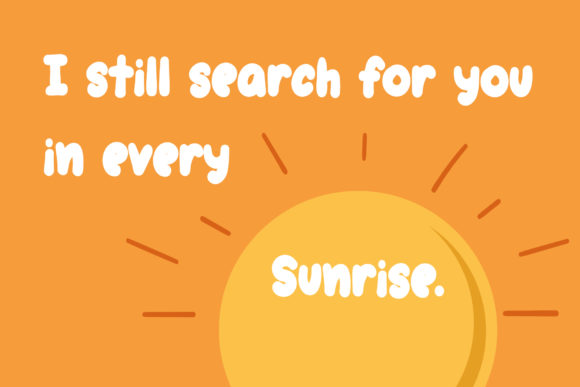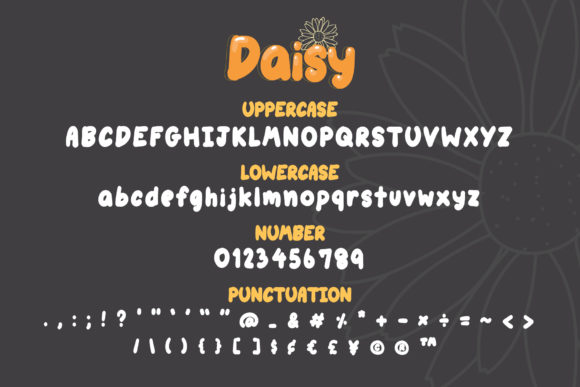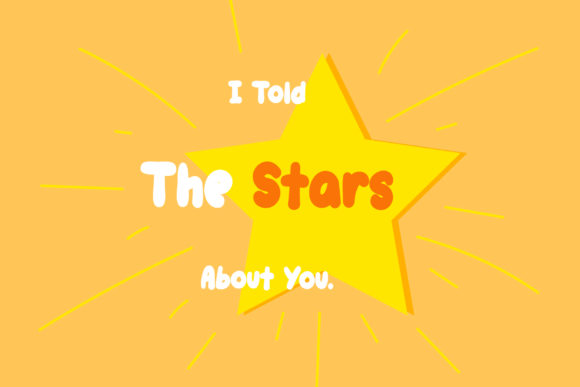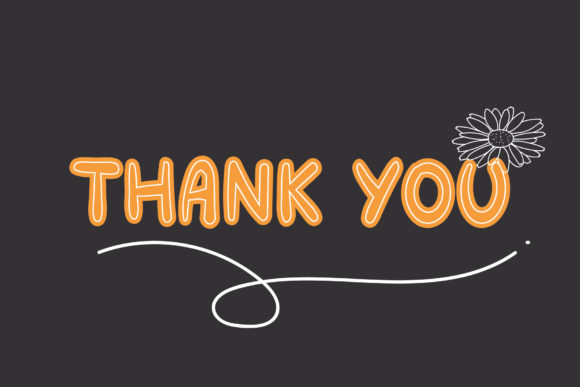
Meet the Font that’ll Make Your Designs Bloom
You know that moment when you’re working on a project and you need the perfect font to bring it all together? Maybe you’re designing a wedding invitation or a children’s book, and you want something that’s both playful and elegant. That’s where the Daisy Font comes in – a beautiful, handwritten font that’s as charming as it is versatile.
Created to be a true favorite among designers, Daisy Font is more than just a font – it’s a way to add a personal touch to your work. With its casual charm and effortless readability, it’s the perfect choice for anything from branding and marketing materials to editorial and publishing projects.
Daisy Font Key Features
- Unique Characteristics: The font features a unique, modern design with a mix of rounded and geometric shapes, giving it a distinctive look.
- X-Height: The x-height of the font is relatively high, making it easy to read and understand, even at smaller font sizes.
- Line Spacing: The font is designed with a generous line spacing, allowing for comfortable reading and easy comprehension.
Daisy Font Review
As a designer, I’ve had the chance to work with the Daisy Font, and I must say it’s an interesting addition to the world of typography.
- Unique aesthetic: The Daisy Font has a distinct and playful personality that can add a touch of whimsy to your designs.
- Clean lines: The font’s clean lines and simple shapes make it easy to read and versatile in its applications.
- Neutral tone: The font’s neutral tone allows it to blend in with various color schemes and designs.
- Legibility: While the font is clean, it can be a bit too minimalist in certain contexts, making it harder to read at smaller sizes.
- Lack of variation: The font’s limited character set and lack of stylistic variations can make it feel a bit one-dimensional.
- Overuse: The font’s playful personality can quickly become overwhelming if overused, making it essential to use it judiciously.
The Daisy Font is a solid addition to any designer’s toolkit, but it’s essential to use it thoughtfully to avoid overwhelming your audience. With its unique aesthetic and clean lines, it’s perfect for projects that require a touch of personality without overwhelming the message.
Daisy Font: A Practical Application Guide
The Daisy font is a great choice for:
- Children’s books and educational materials
- Food and beverage branding
- Home decor and craft projects
For optimal results, use the Daisy font in conjunction with bright, playful colors and whimsical graphics.
Can I use Daisy Font for digital signage or large-format printing?
Yes, Daisy Font is suitable for digital signage and large-format printing. Its clear and legible design makes it an excellent choice for displays and signage where text needs to be easily readable from a distance. However, you may need to adjust the font size and line spacing to ensure optimal readability in these applications.